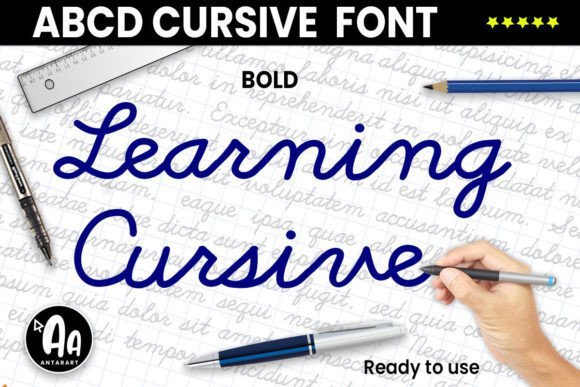
Unlocking the Art of Cursive Handwriting
Remember the thrill of watching your child’s first wobbly lines transform into beautiful cursive script? As a parent or educator, witnessing this milestone can be incredibly rewarding. It’s a moment that sparks creativity, patience, and dedication – all essential qualities for a lifetime of learning.
For those who want to nurture this skill, Abcd Cursive Bold Font is a game-changing tool. This display font enables users to generate thousands of worksheets with ease, making it an invaluable resource for teaching cursive handwriting in an enjoyable and interactive way. For designers, it offers a unique opportunity to create engaging educational materials that cater to diverse learning styles.
With Abcd Cursive Bold Font, the possibilities are endless – and so is the potential for creativity and growth.
Key Features of “Abcd Cursive Bold Font”
- Unique Characteristics: Distinctive cursive script with bold weight, ideal for use in titles, headings, and other emphasis contexts
- Font Style: Cursive, Bold, with options for italic and oblique styles for added versatility
Designer Review: Abcd Cursive Bold Font
Overall, I think the Abcd Cursive Bold Font is a decent choice for projects where you need a classic, elegant feel. ✨ It’s perfect for wedding invitations, greeting cards, or even packaging designs where you want to add a touch of sophistication.
- ✨ Unique character set: The font has a distinctive, flowing design that’s easy to read, even at smaller sizes.
- ✨ Good legibility: The bold weight gives the font a strong presence, while still maintaining clear letterforms.
- ✨ Versatile: You can use Abcd Cursive Bold for headings, body text, or even as a decorative element.
- ⚠️ Limited font sizes: Abcd Cursive Bold can become a bit pixelated when scaled up or down beyond a certain range.
- ⚠️ Limited language support: This font may not be suitable for languages that require complex diacritics or non-Latin scripts.
Overall, I’d give Abcd Cursive Bold 3.5 out of 5 stars. It’s a solid choice for the right project, but it may not be the best fit for every design need.
Tips for Getting the Most Out of Abcd Cursive Bold Font
For best results, use Abcd Cursive Bold Font in conjunction with other decorative fonts to create a visually appealing design.
Use it sparingly to add emphasis and create contrast in your design.
Experiment with different font sizes and styles to achieve the desired effect.
Abcd Cursive Bold Font is commonly used for:
– Baby shower invitations and decorations
– Gift tags and cards
– Social media graphics and advertisements.
Alternatives to Abcd Cursive Bold Font for Designers
Carolyna Pro is a luxurious and elegant script font, perfect for wedding invitations, luxury branding, and high-end marketing materials. It features a classic, sophisticated look and a wide range of styles to suit different design needs.
Compared to Abcd Cursive Bold Font, Carolyna Pro has a more refined and polished appearance, making it ideal for premium branding and high-end design projects. While Abcd Cursive Bold Font has a more playful and casual feel, Carolyna Pro exudes sophistication and luxury.
Great Vibes is a modern and stylish script font that’s perfect for creative projects, such as magazine covers, posters, and social media graphics. It features a dynamic, energetic feel and a wide range of styles to suit different design needs.
Compared to Abcd Cursive Bold Font, Great Vibes has a more modern and edgy appearance, making it ideal for young and trendy design projects. While Abcd Cursive Bold Font has a more classic and timeless feel, Great Vibes is perfect for projects that require a bold and eye-catching look.
What is the recommended font size and line height for Abcd Cursive Bold Font?
The recommended font size for Abcd Cursive Bold Font is between 12pt and 24pt, depending on the desired level of legibility and visual impact. The recommended line height is 1.2 to 1.5 times the font size, to ensure proper spacing and readability.